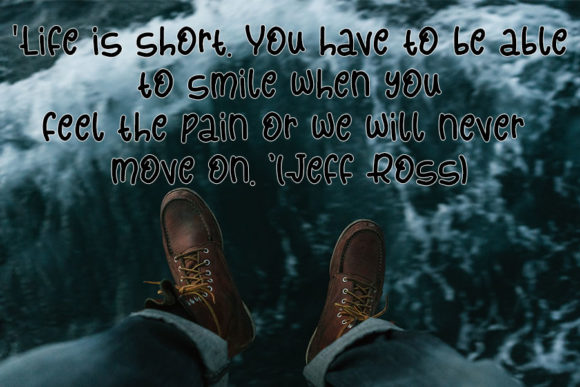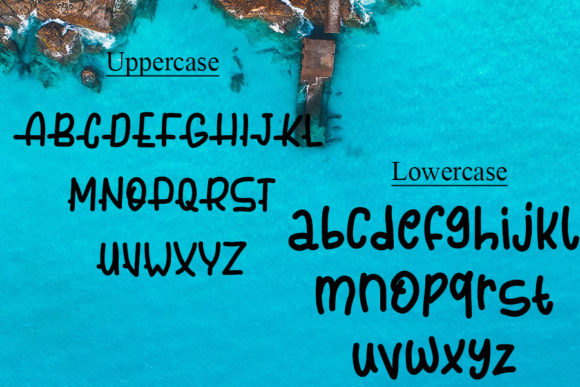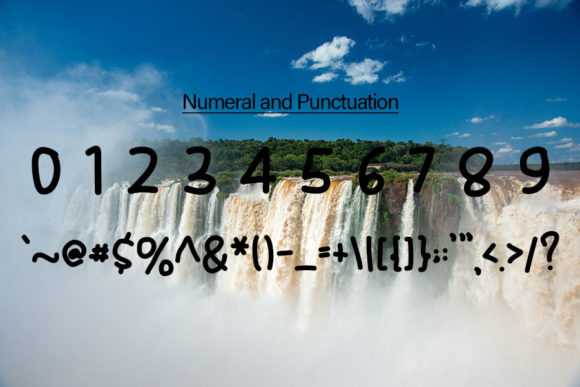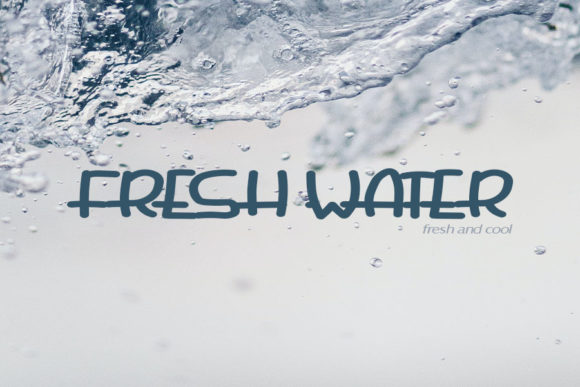
Introduction to Fresh Water Font
Fresh Water is an incredibly unique display font.
Masterfully designed to become a true favorite, this font has the potential to bring each of your creative ideas to the highest level It looks stunning on wedding invitations, thank you cards, quotes, greeting cards, logos, business cards and every other design which needs a handwritten touch.
Key Features of Fresh Water Font
Why Choose Fresh Water Font?
Fresh Water Font offers exceptional quality and versatility, making it a valuable addition to your design toolkit. Whether you’re creating for personal projects or commercial use, Fresh Water Font delivers professional results.